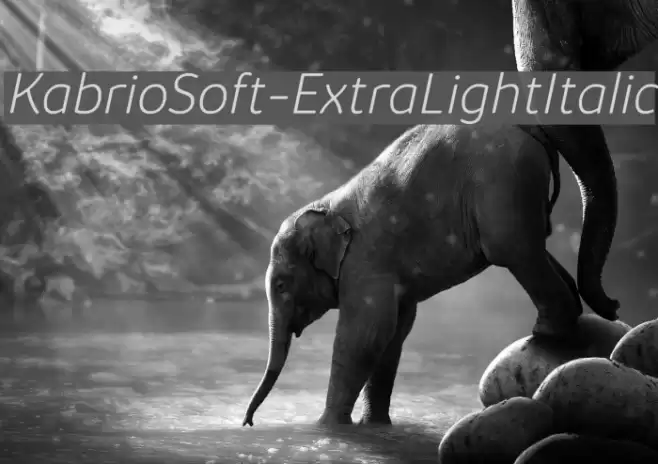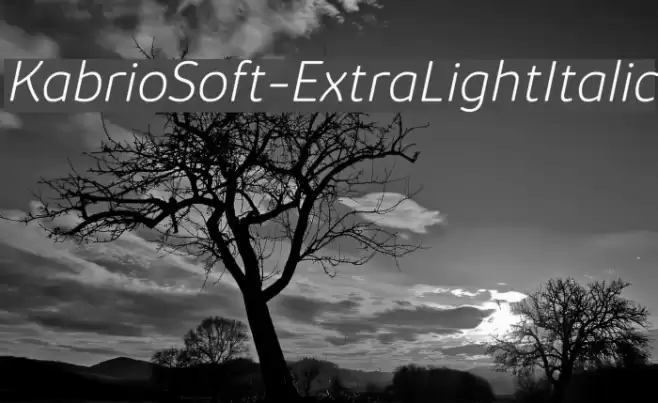
KabrioSoft-ExtraLightItalic Font
KabrioSoft-ExtraLightItalic Description
This font features a sleek and modern design with a subtle italic slant, giving it a dynamic and fluid appearance. The characters are crafted with a clean and minimalistic approach, emphasizing simplicity and readability. The extra light weight of the strokes provides an airy and elegant feel, making it suitable for contemporary design projects. The font maintains a consistent and harmonious flow across both uppercase and lowercase letters, as well as numbers and special characters. Its refined style is perfect for conveying a sense of sophistication and modernity.
A sleek, modern extra light italic font with a clean and elegant design from Uncategorized fonts.
- Proposed Projects: Ideal for branding, editorial design, digital interfaces, and minimalist posters.